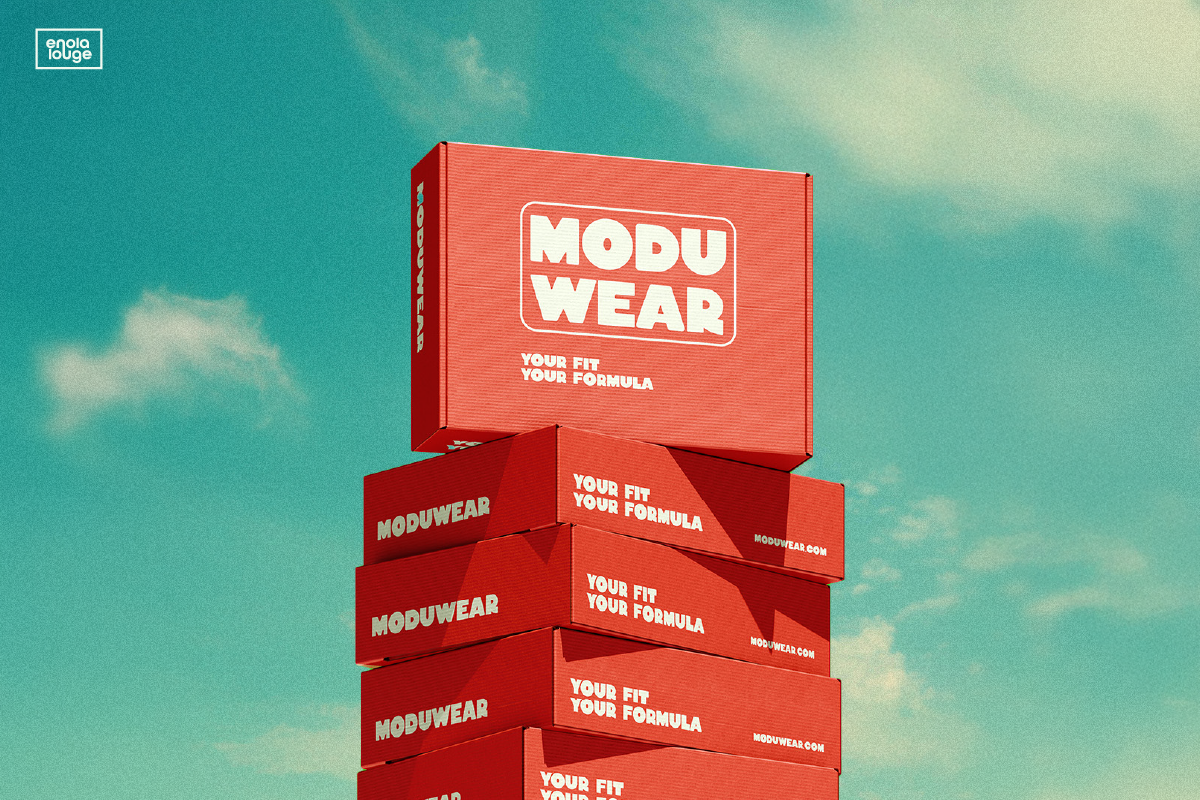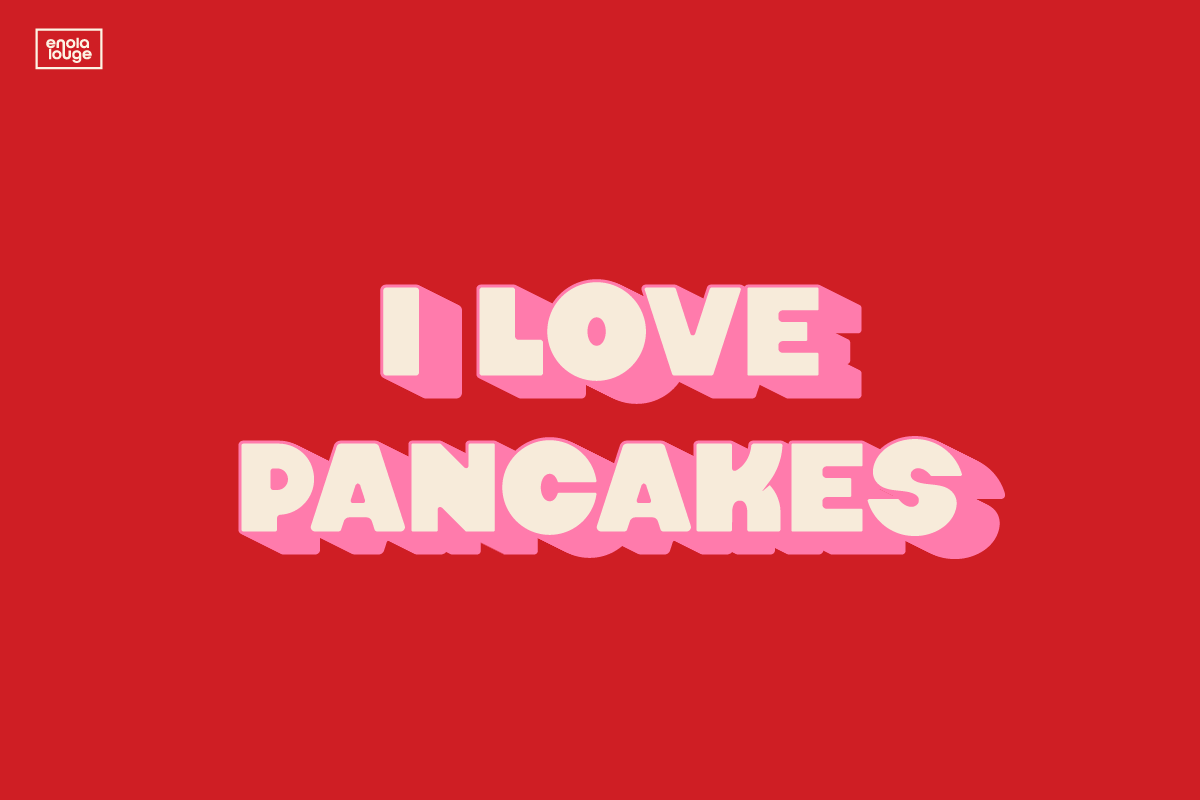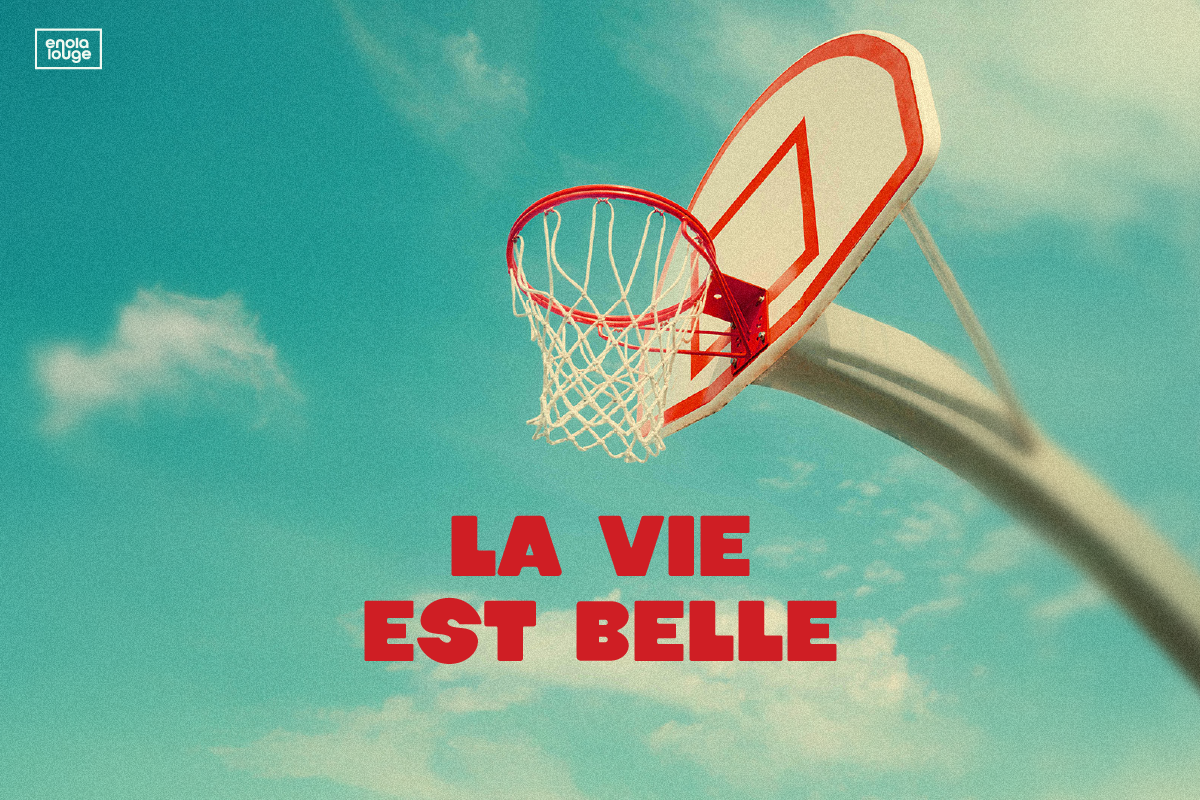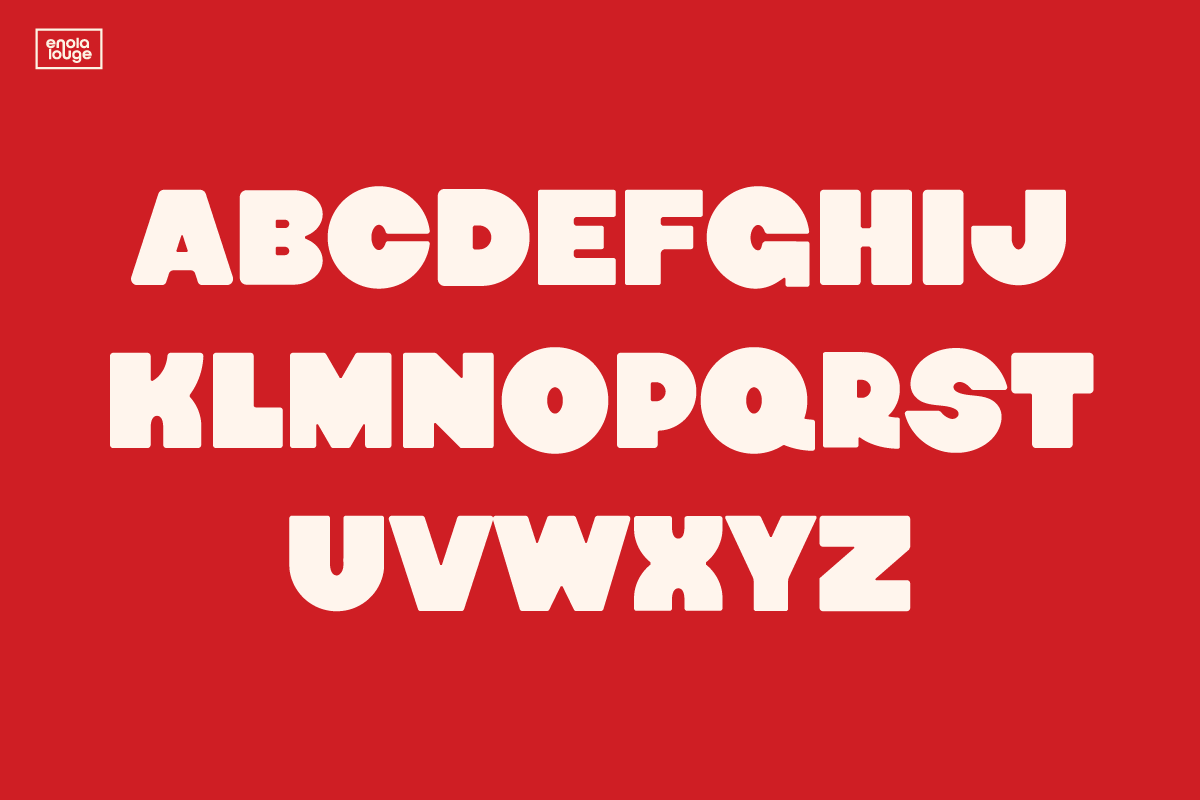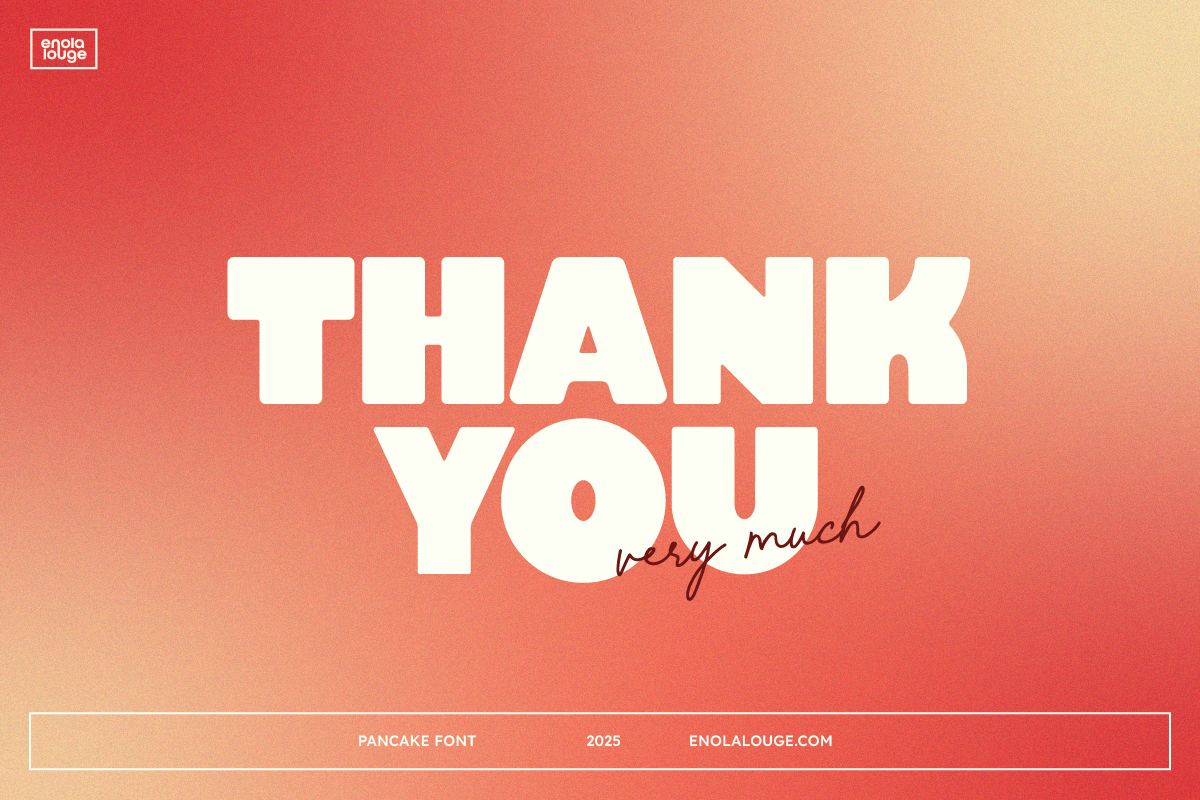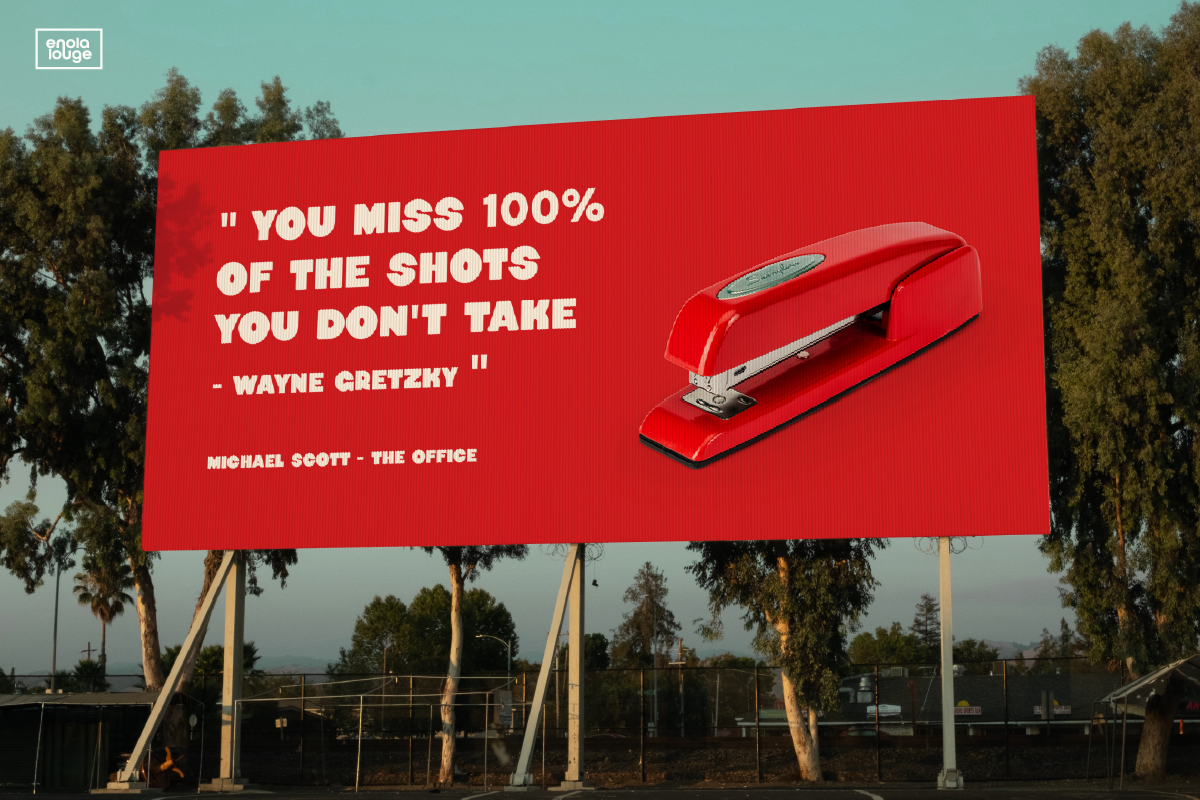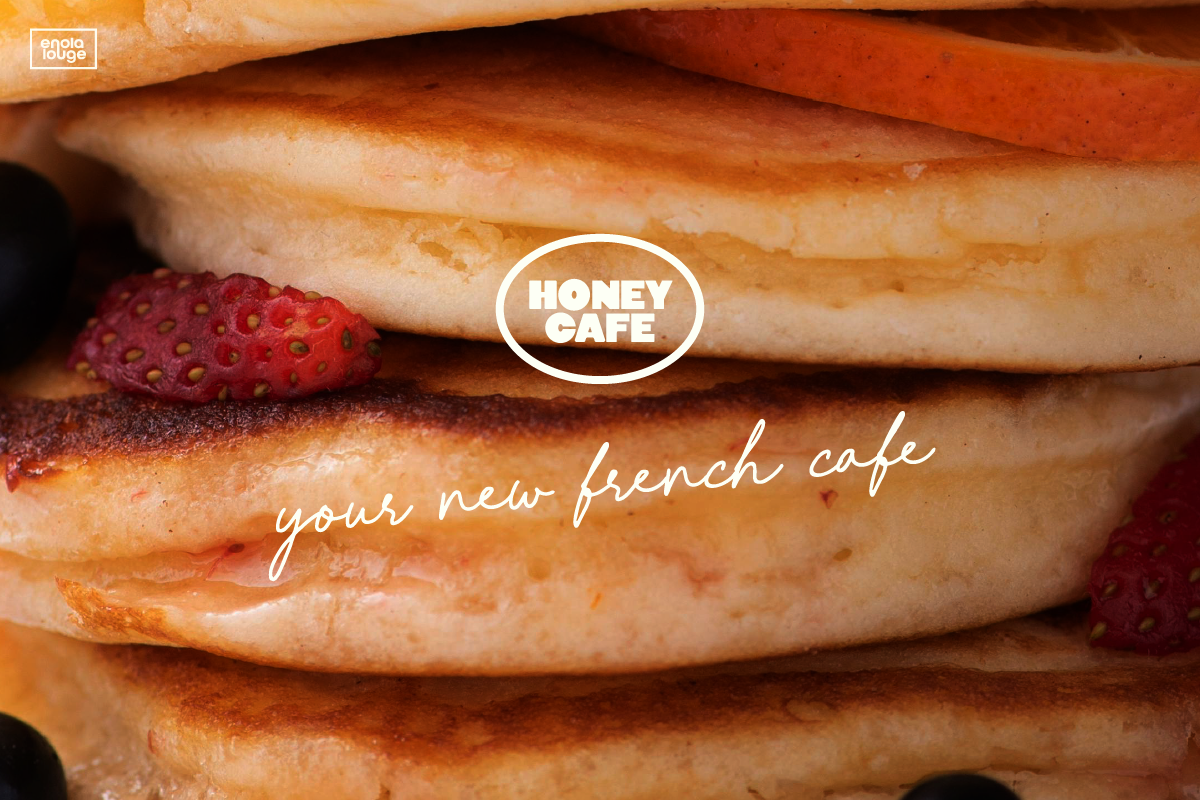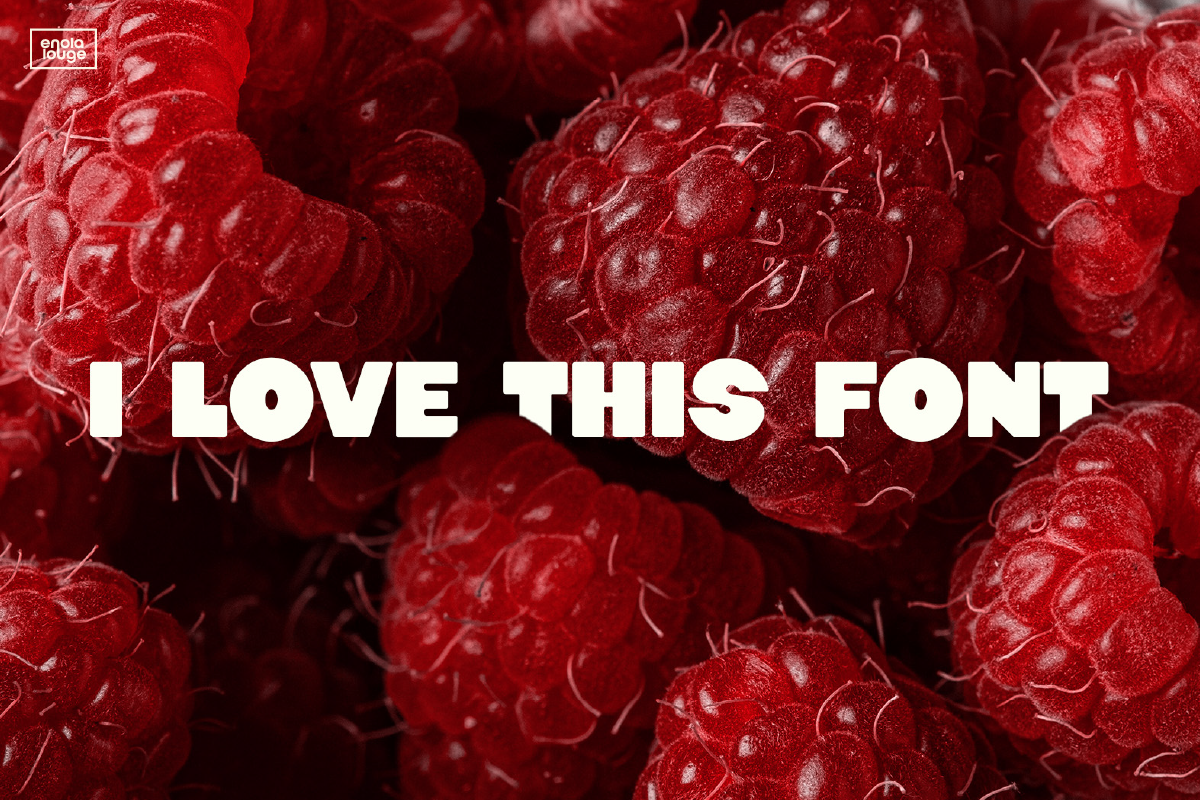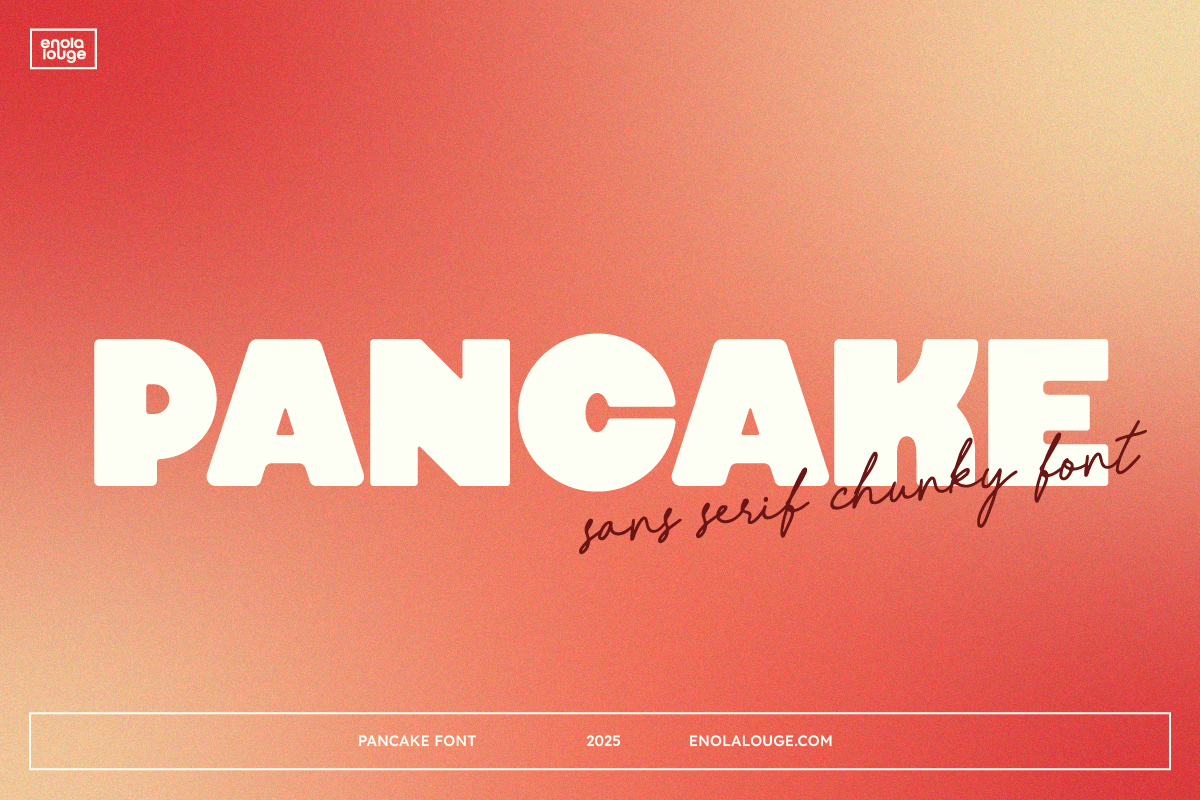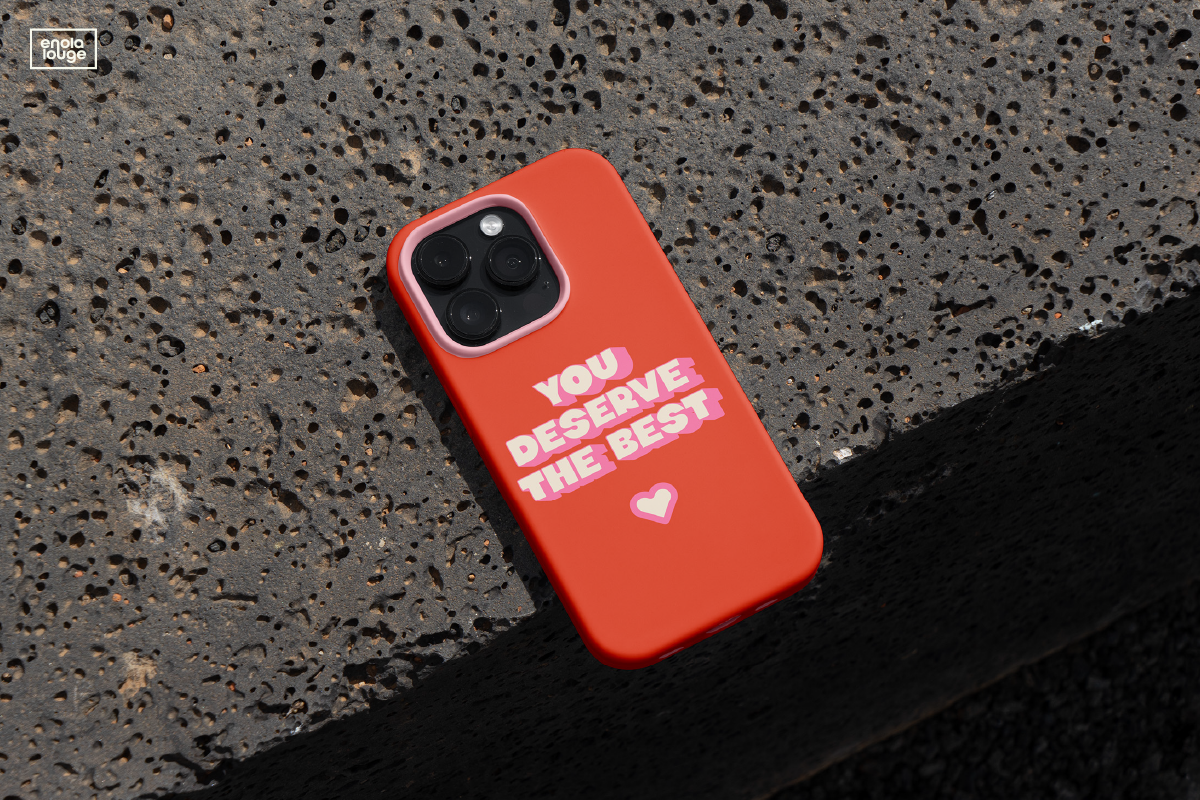
Pancake - sans-serif chunky font
Pancake is a bold, playful sans-serif font with chunky curves and a fun-loving personality. Designed to bring warmth and approachability to your projects, it’s perfect for headlines, logos, packaging, and anything that needs a punch of friendly impact.